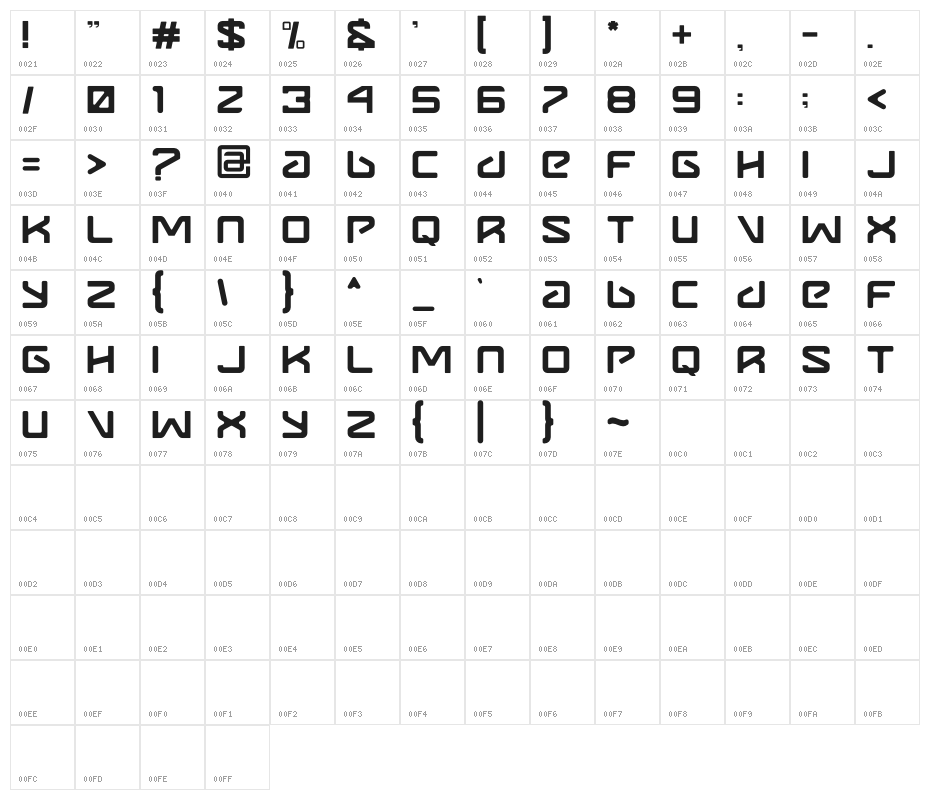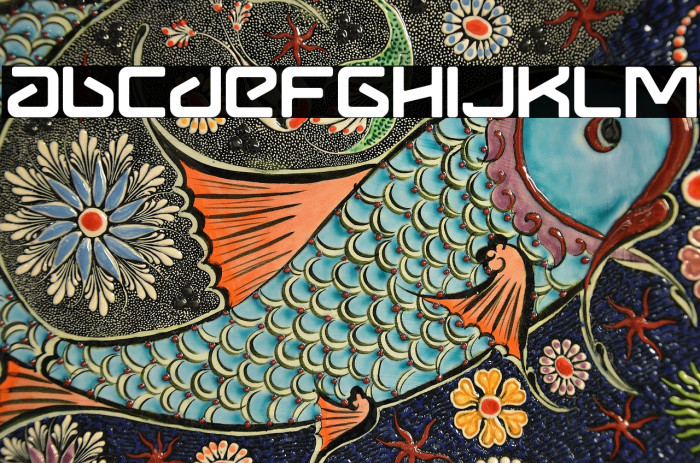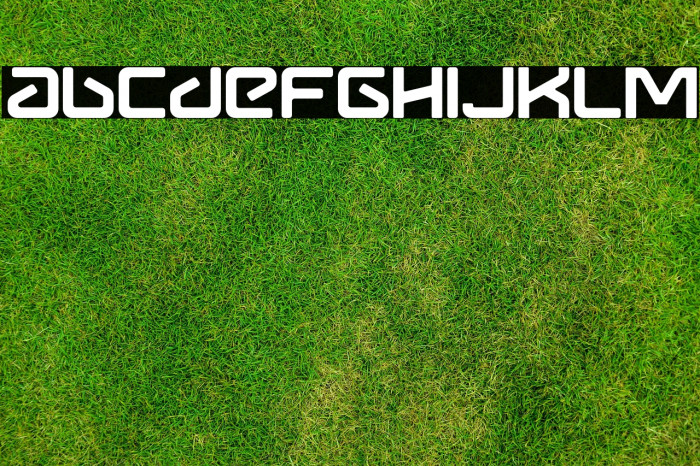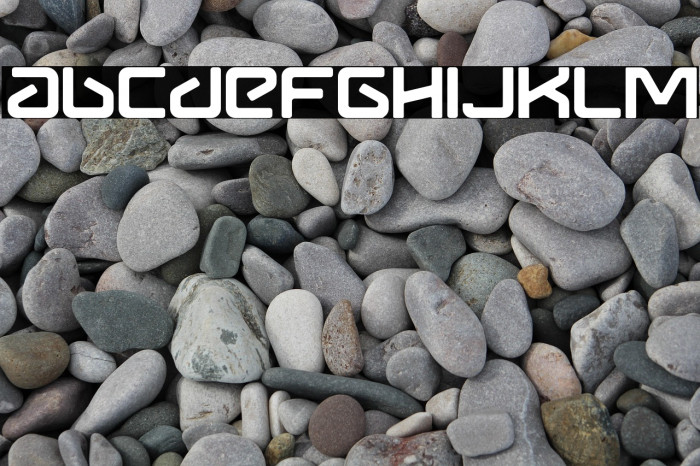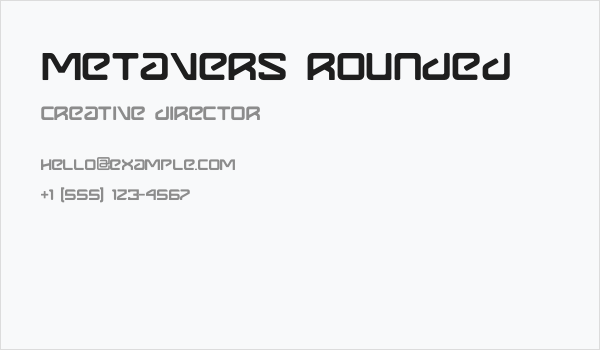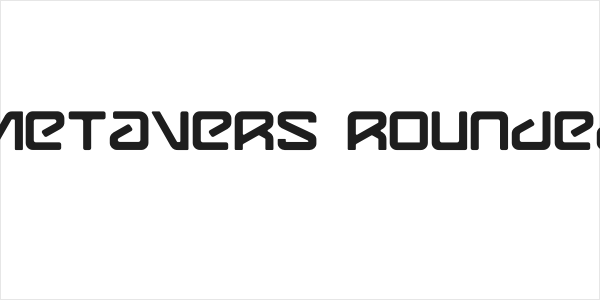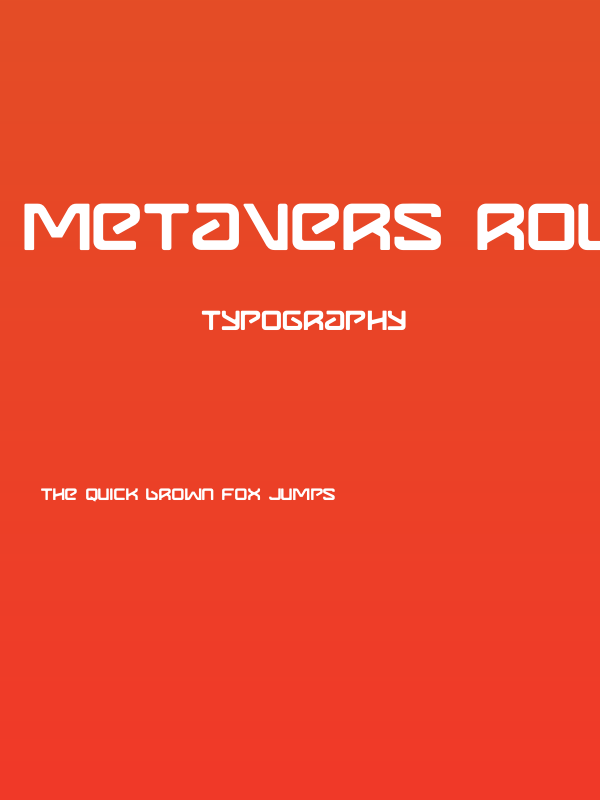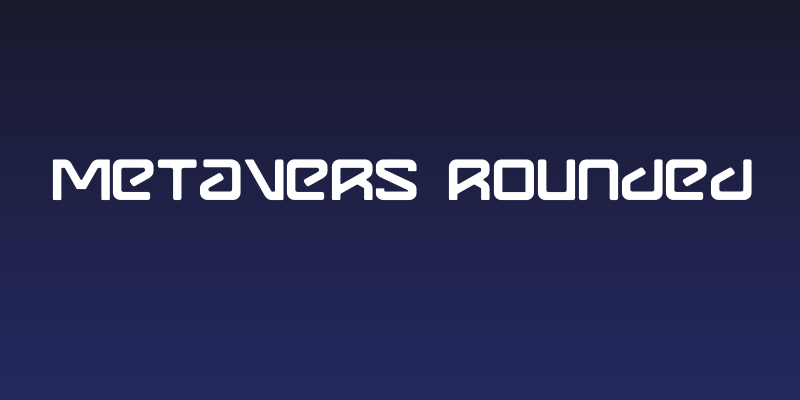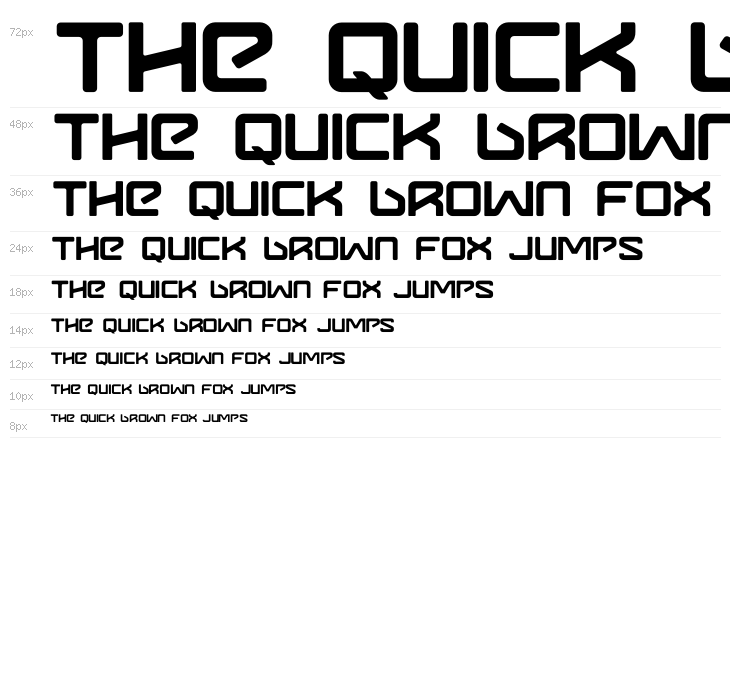
Metavers Rounded Font
Metavers Rounded Description
A futuristic, rounded sans-serif font with geometric shapes and consistent stroke width, giving it a modern and tech-oriented appearance.
| Use Case | Logos, Tech branding, Digital interfaces |
| Proposed Projects | Tech branding, digital interfaces, modern logos. |